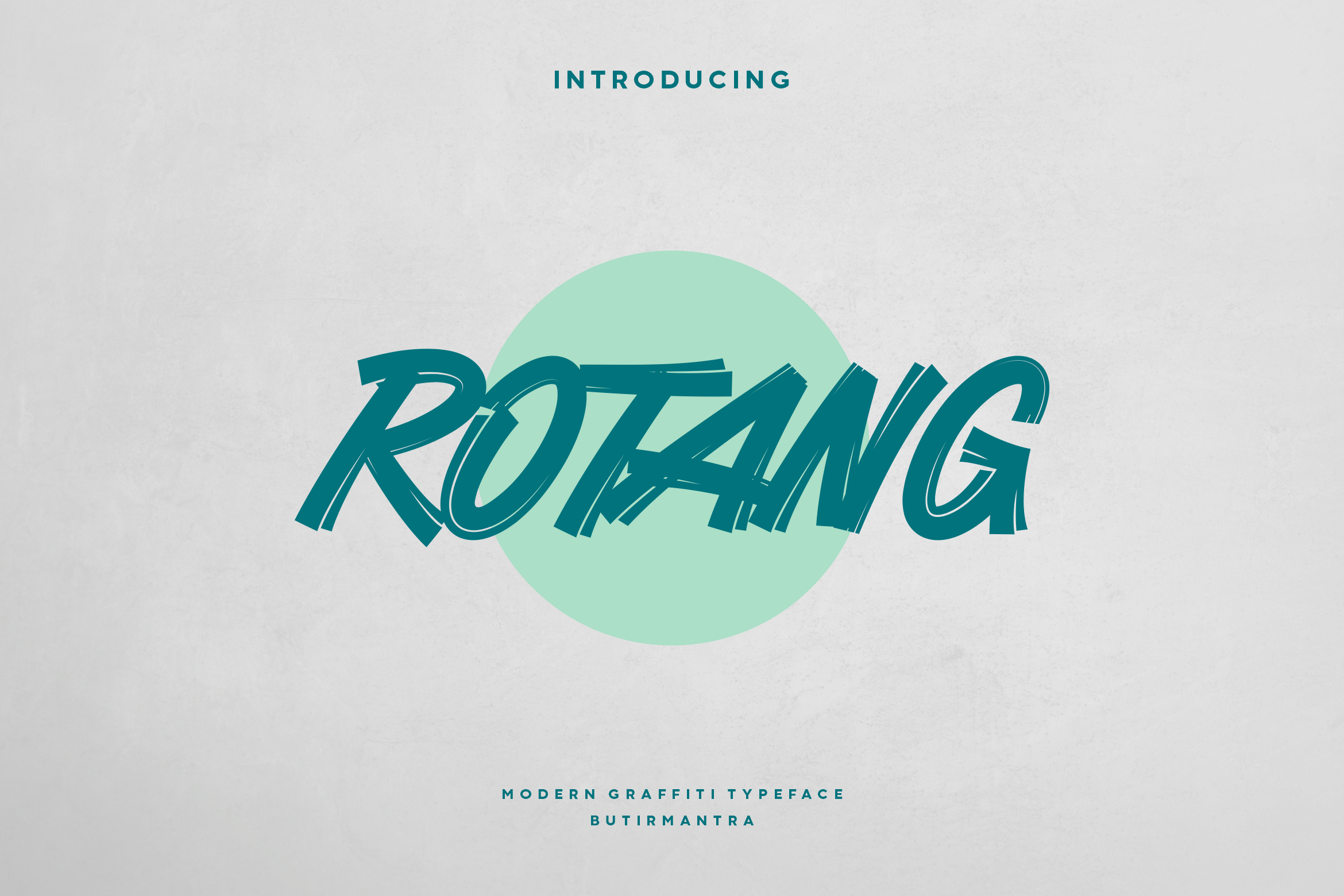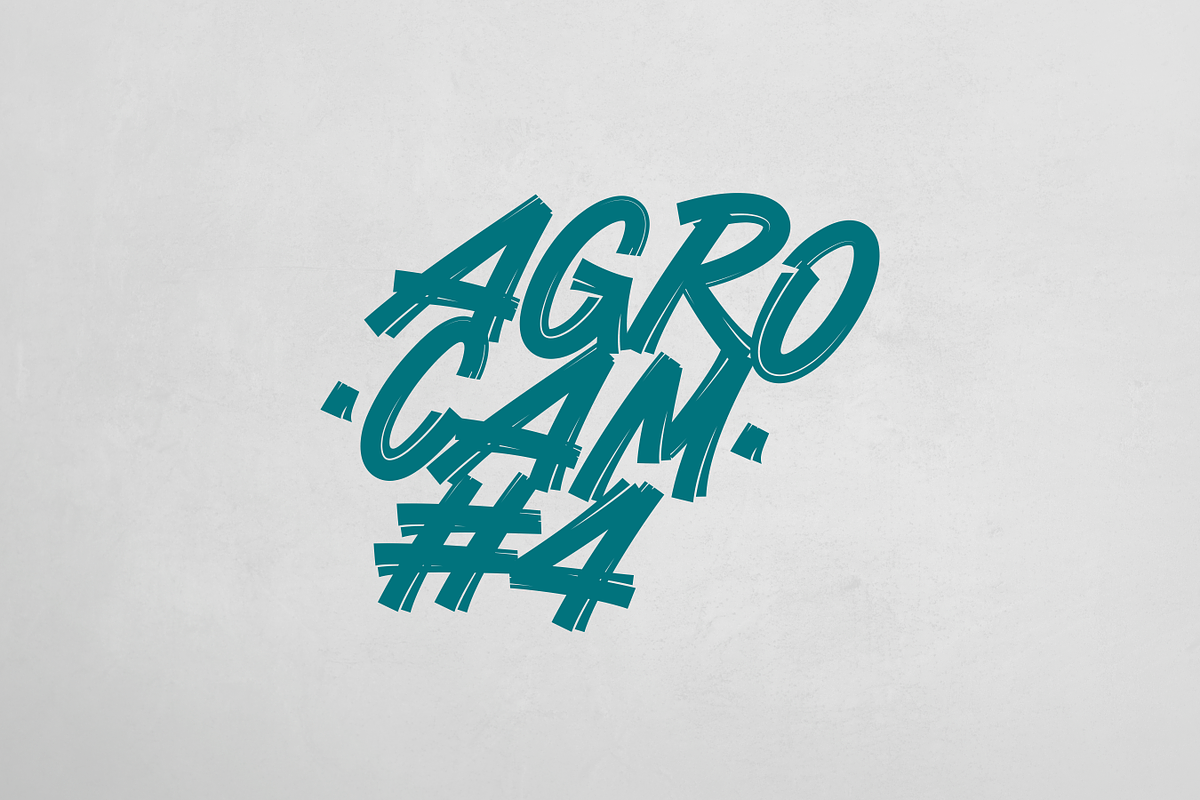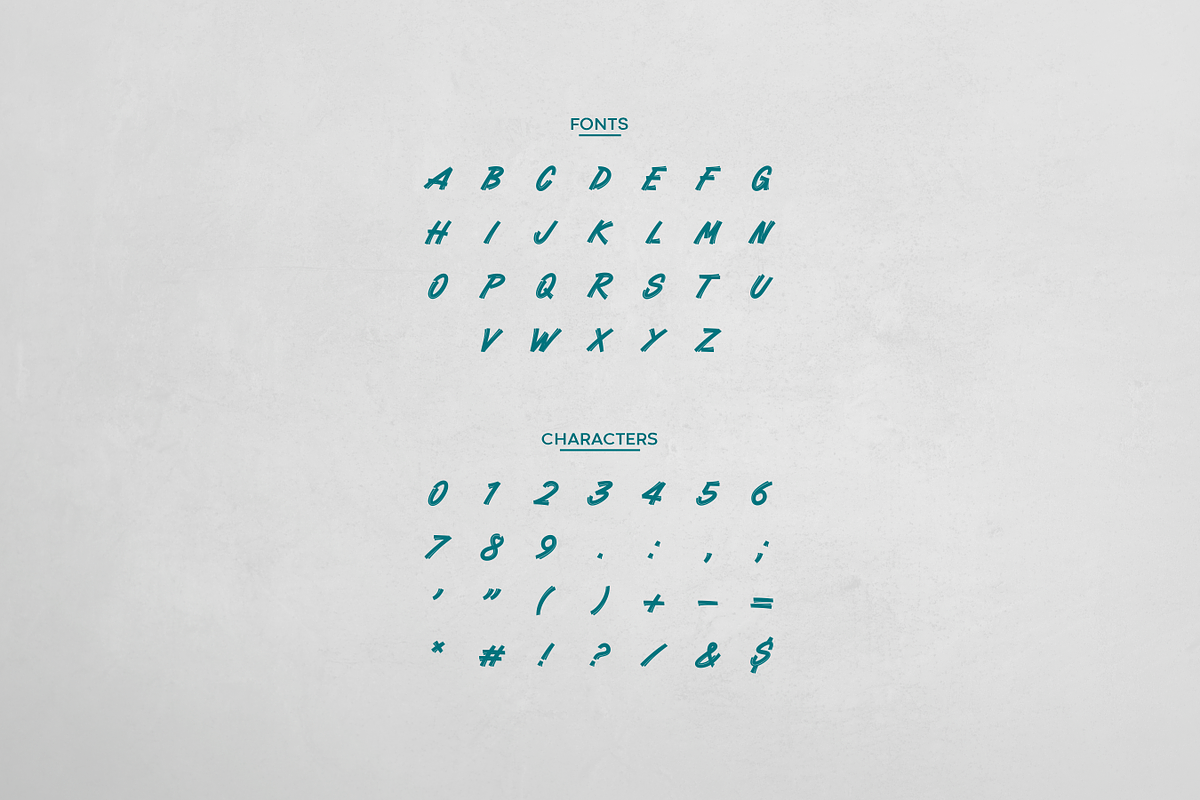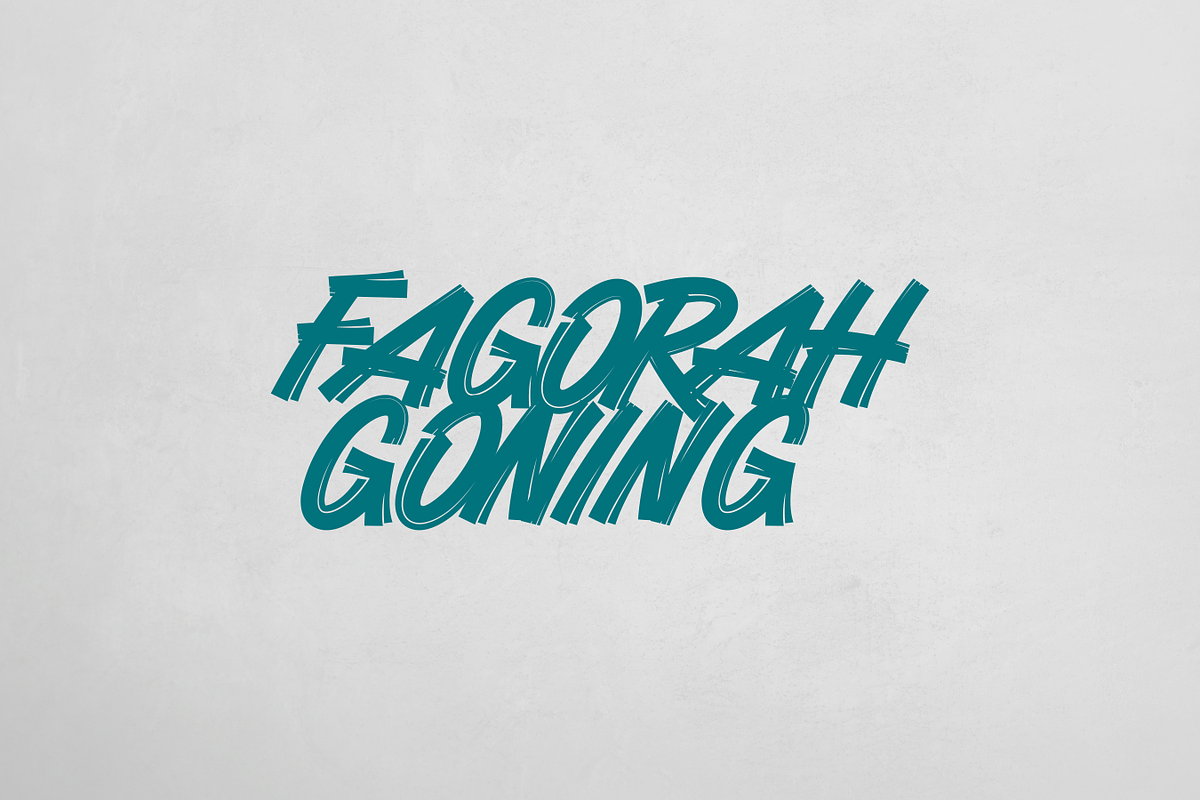
Rotang - Modern Handbrush Typeface
Rotang is a graffiti style handwritten font, coming in uppercase letters. Rotang is inspired by the calligraphy tagging style, which can be seen from the bold and expressive style of the marker strokes. This font is very suitable for use in logo designs, headlines, handwritten quotes, product packaging, merchandise, and even some other designs.
- Punctuation & Number